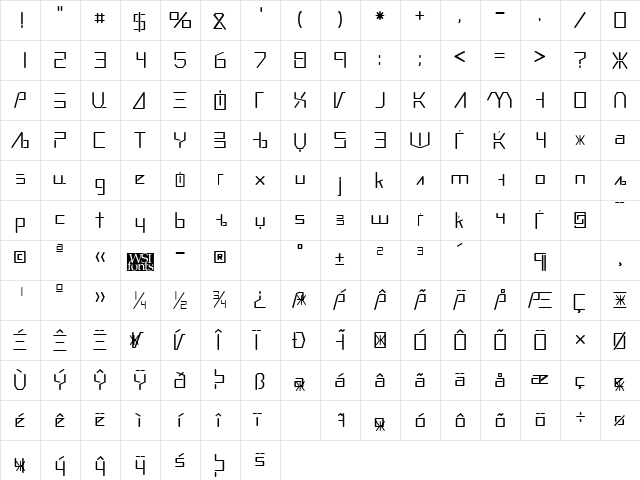
X_Robotic Thin
Design Context for X_Robotic Typeface
X_Robotic takes a measured approach to typography — its balanced proportions and neutral character make it a reliable workhorse for both digital and print work. Its slender proportions lend an understated elegance to any composition.